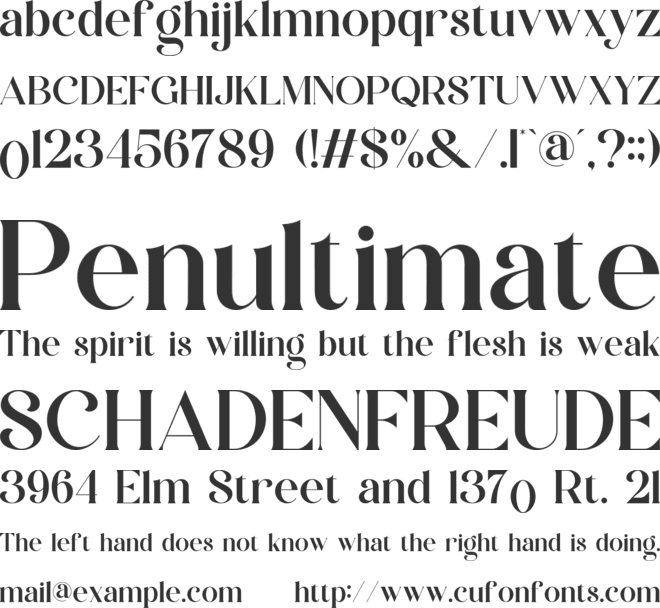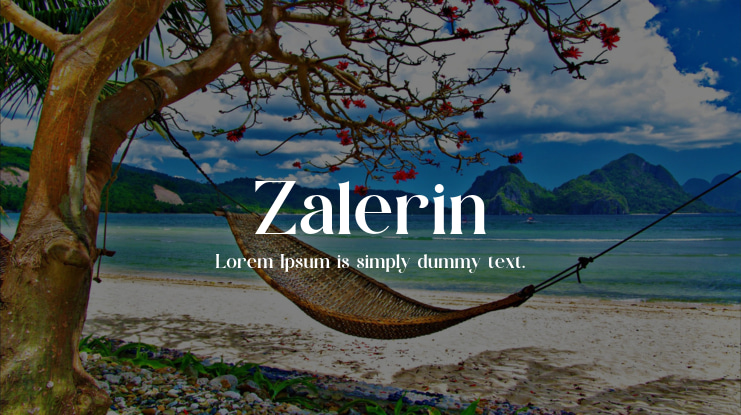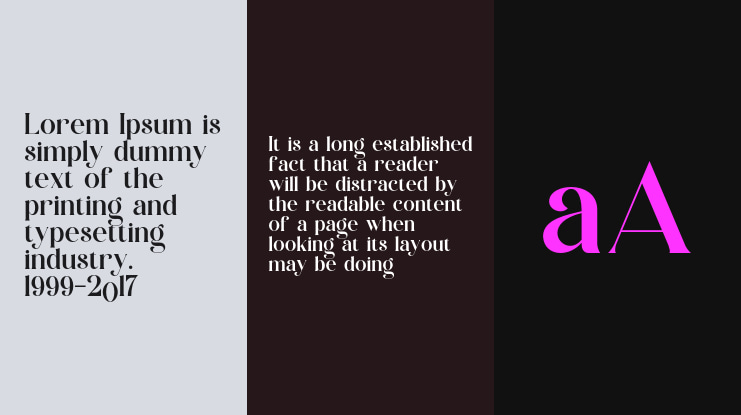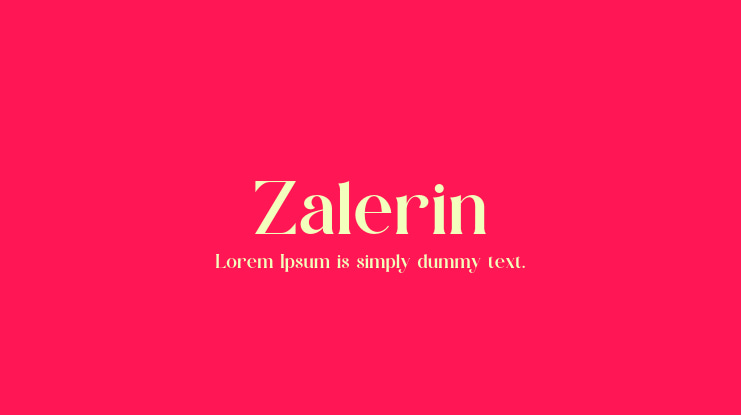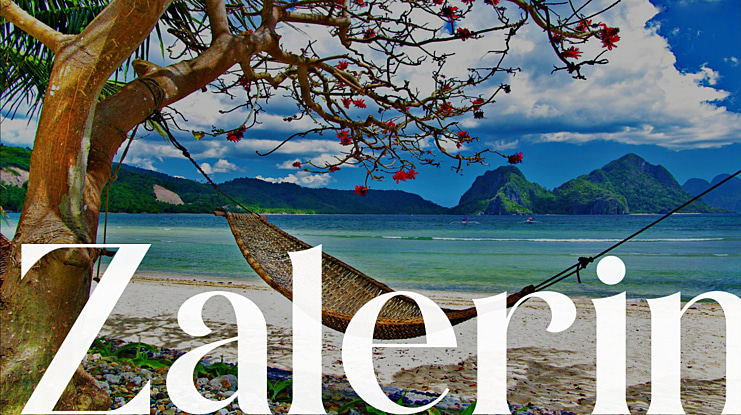
Zalerin Font
Zalerin Serif is a modern and classy font type for all branding and logo designs. This modern and classy Serif font has a beautiful character. This font is suitable for invitation card designs, cool logos, movie titles, movie names, business cards, book titles, brand names, and various other designs. Zalerin Serif is a smooth serif font that exudes sophistication and the moment. Its stylish alterations and ligatures make this font a perfect partner for any project.